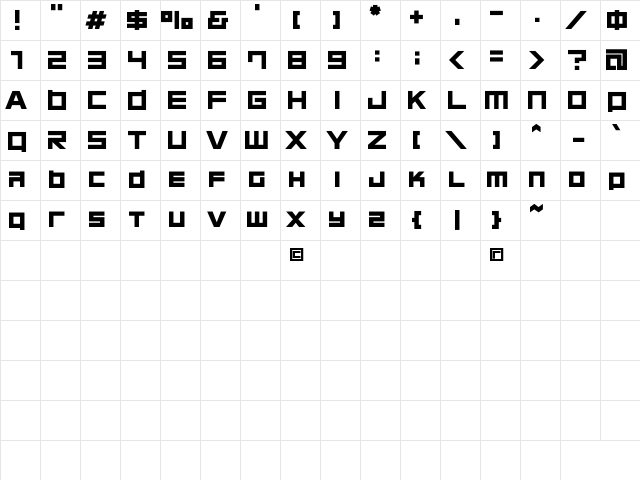
Chubu 08 Normal Regular
Design Context for Chubu 08 Normal
Chubu 08 Normal is a composed and adaptable typeface that performs quietly and consistently across a wide range of design contexts.
Pro Tip: Use Chubu 08 Normal in both headline and body roles to test its range before committing to a single application.